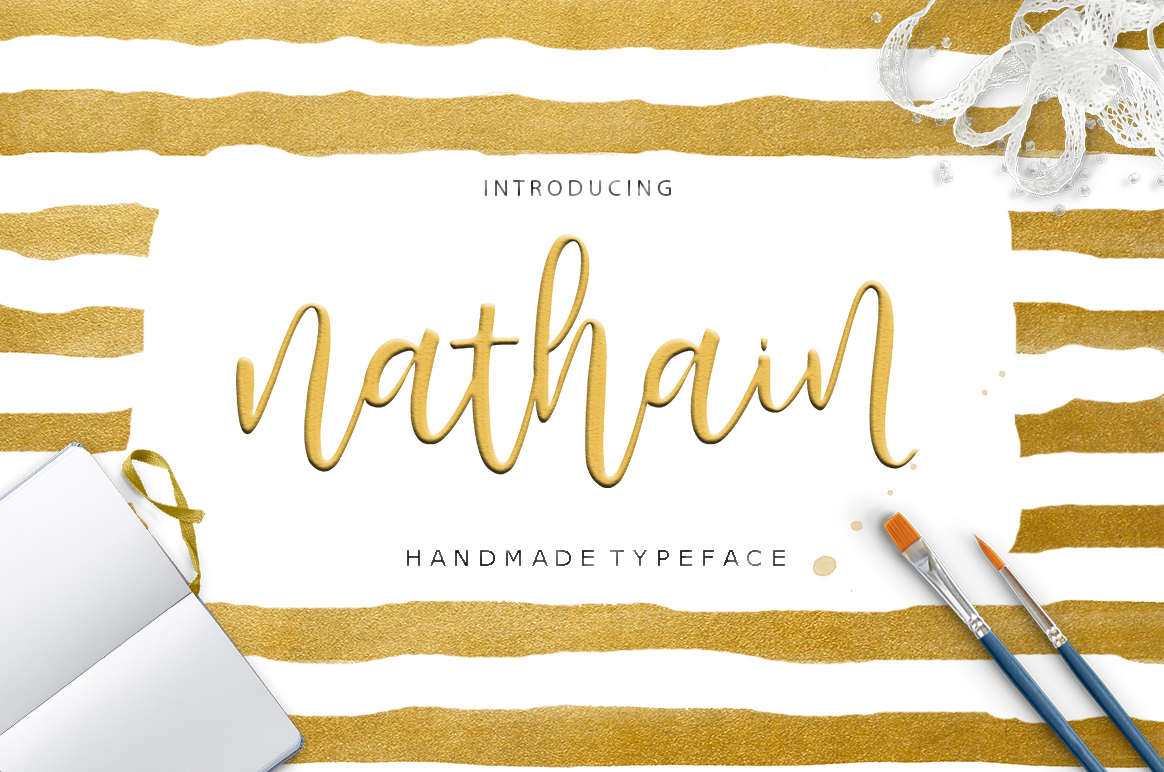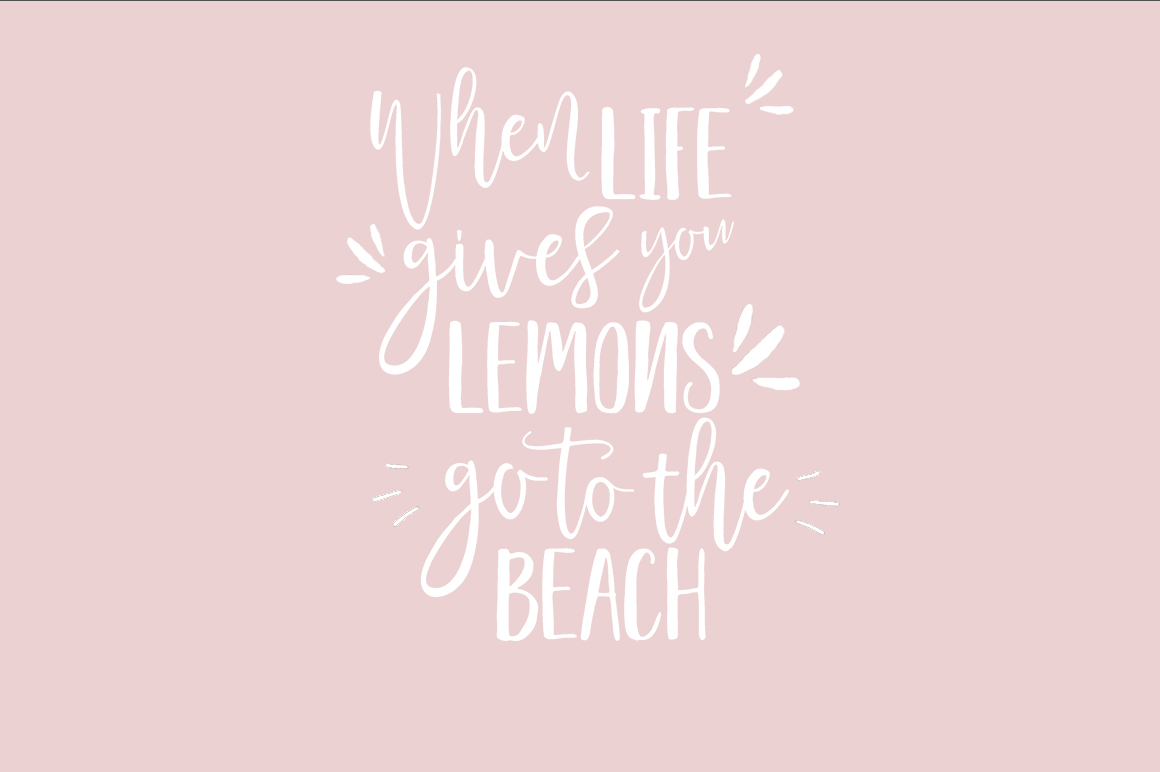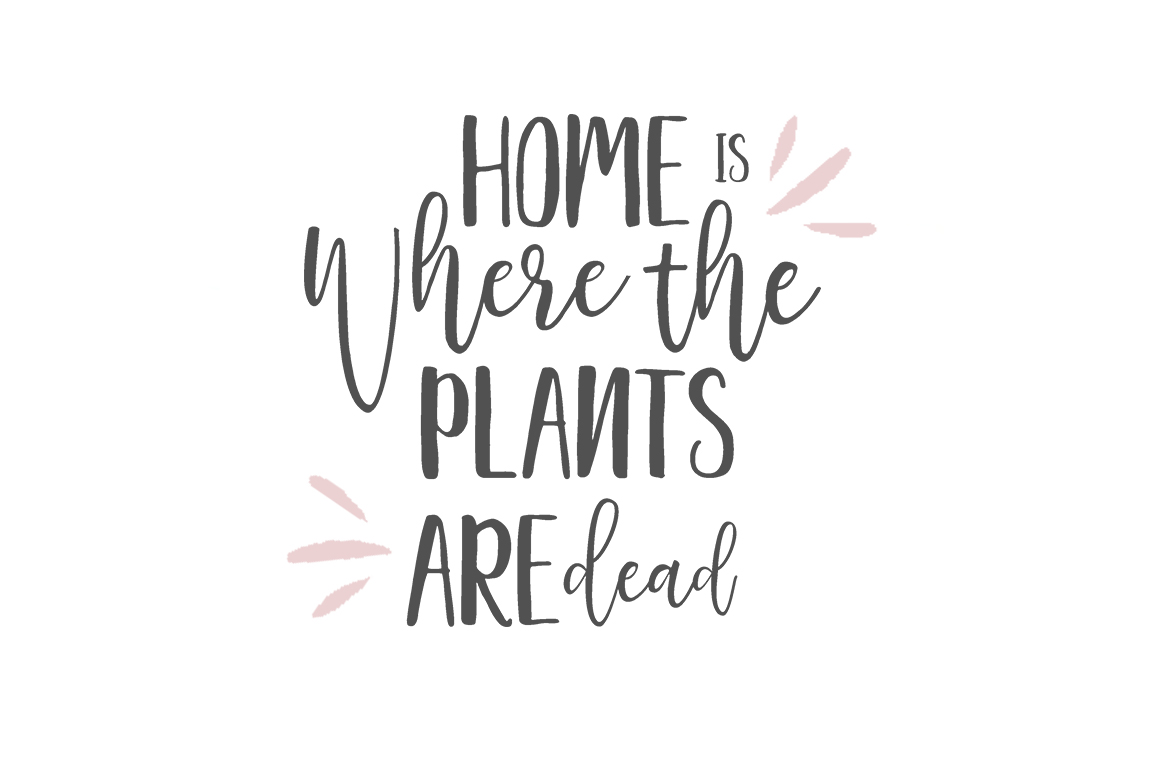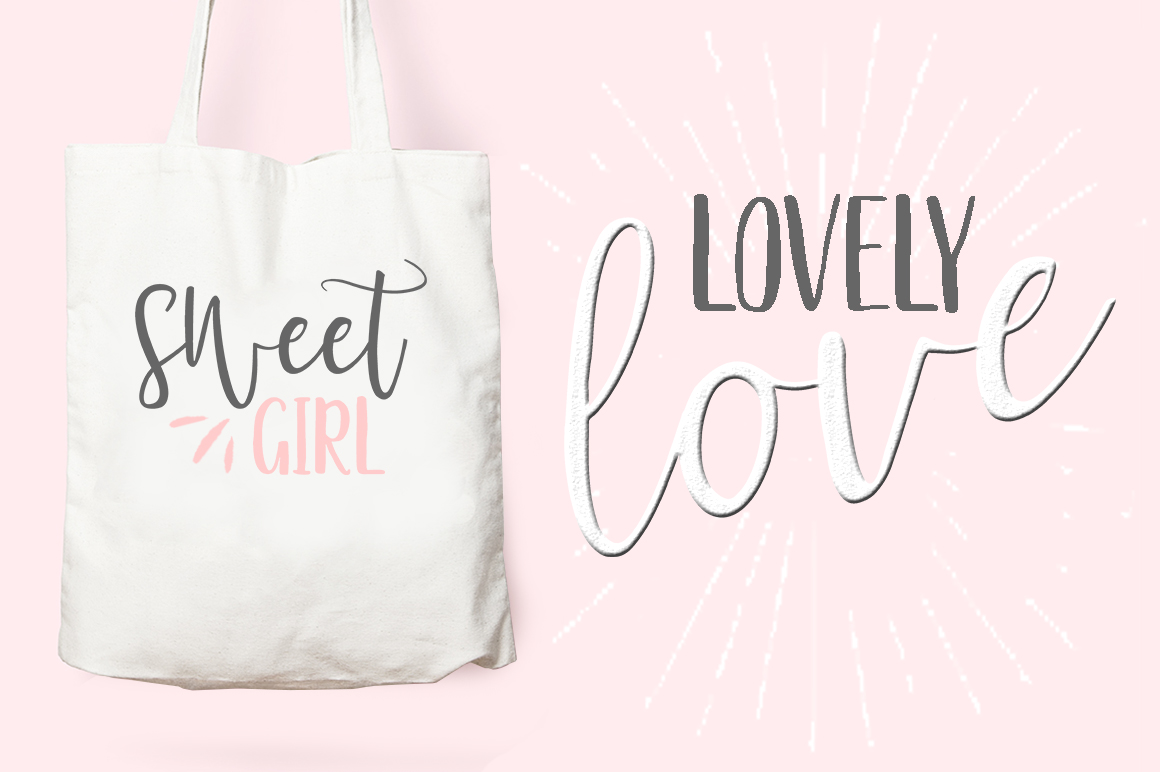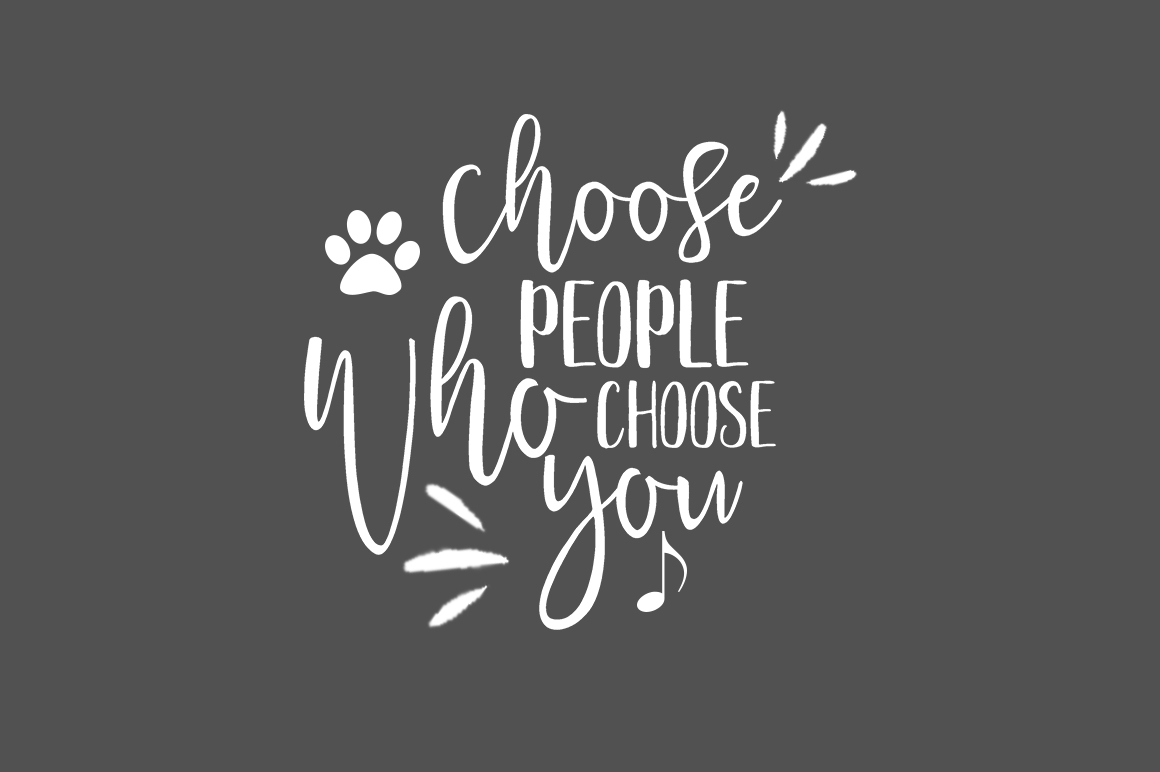
Nathain Font
Nathain is a hand-brushed font created on paper with a brush and ink.
It features an irregular baseline which make the font flow up and down on the screen.